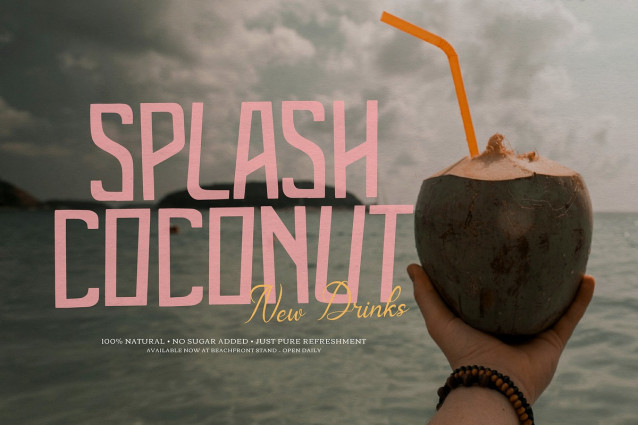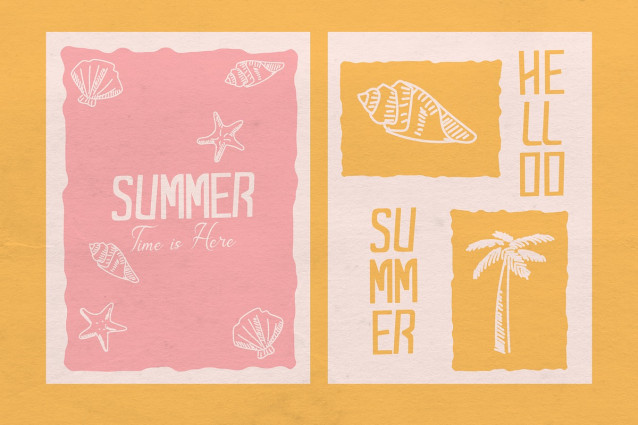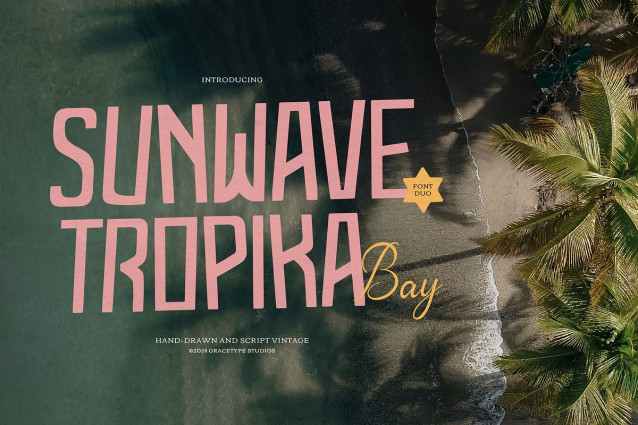
Sunwave Tropika Bay Font Duo
Sunwave Tropika Bay Font Duo | Hand Drawn Vintage Duo, from Gracetypestudio, suitable for any projects such as: logos, branding projects, homeware designs, product packaging, mugs, quotes, posters, shopping bags, t-shirts, book covers, name card, invitation cards, greeting cards, label, photography, watermark, special events, and all your other lovely projects that need a Hand Drawn Vintage Duo taste.